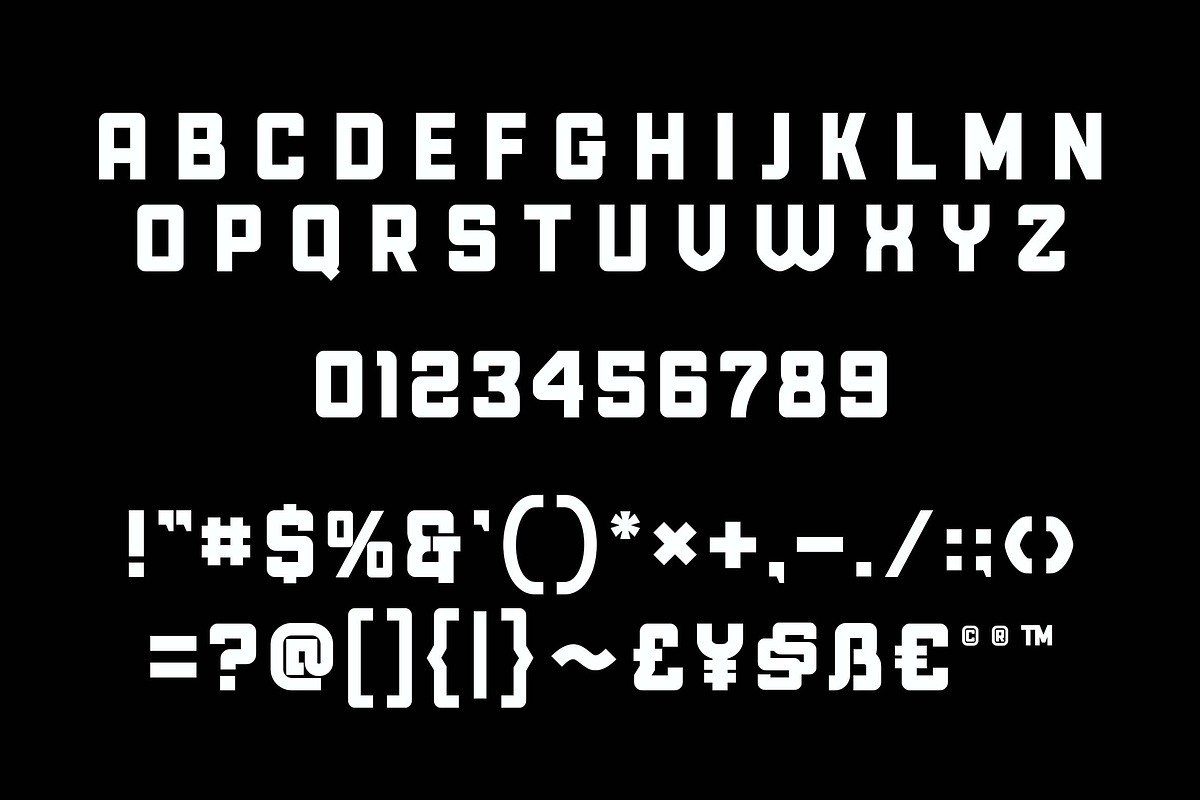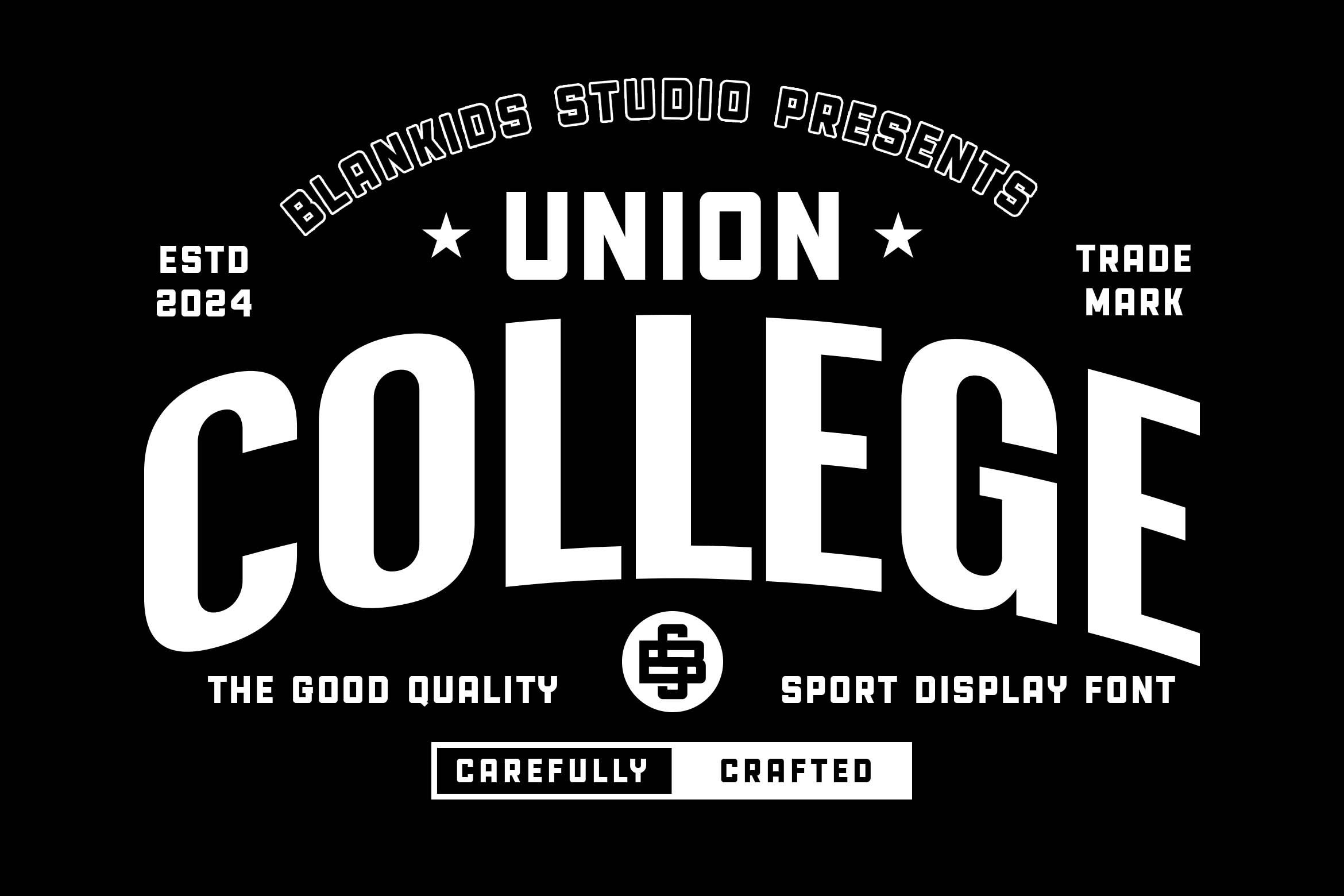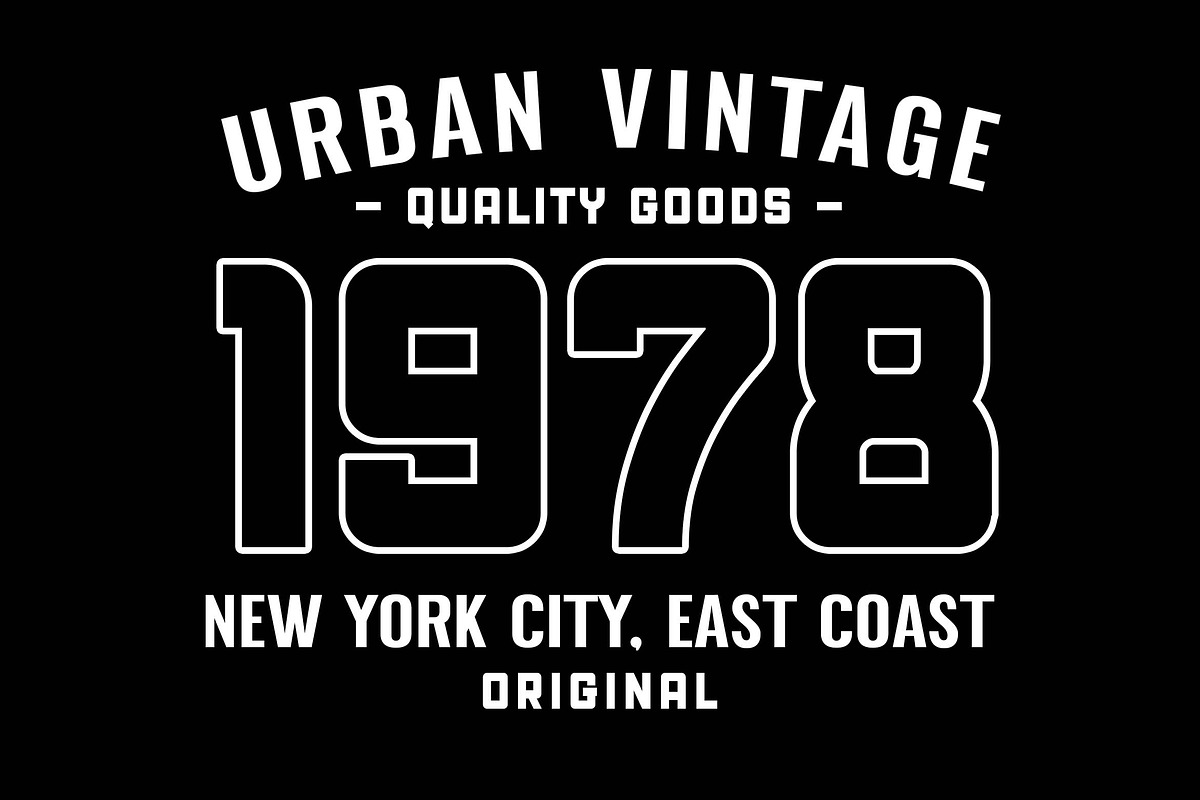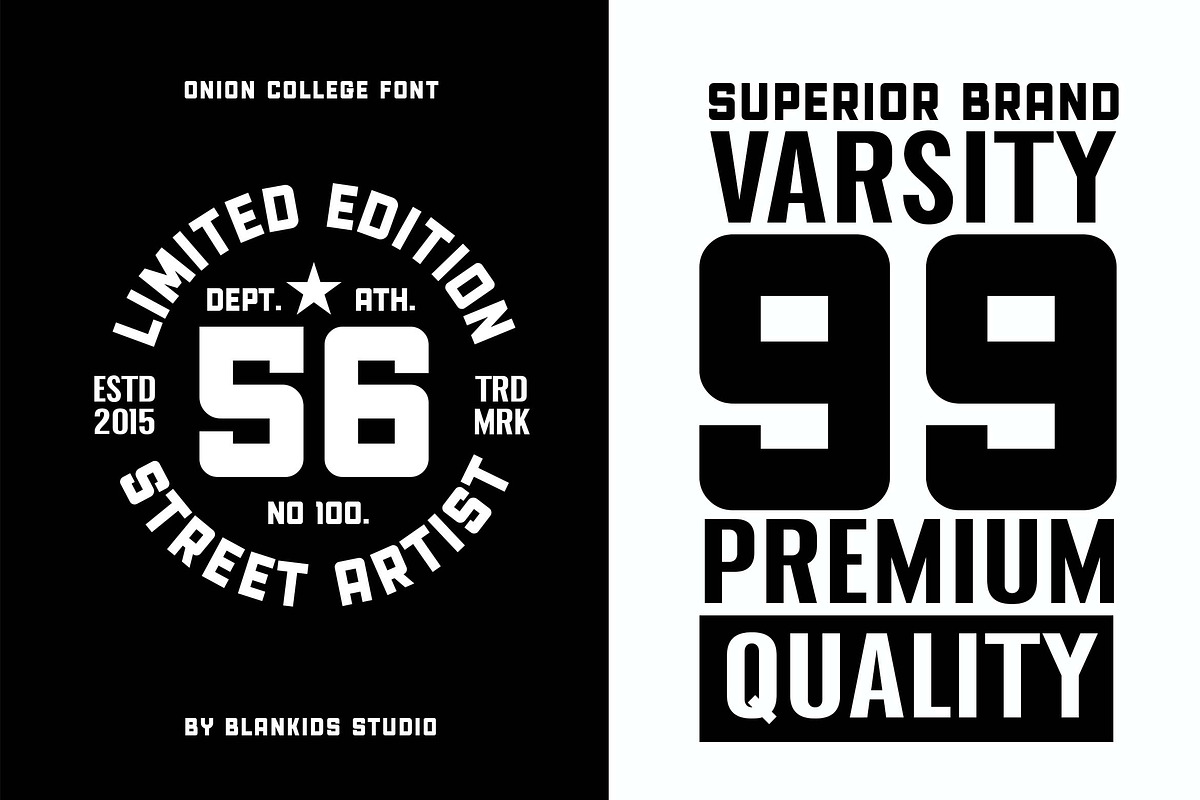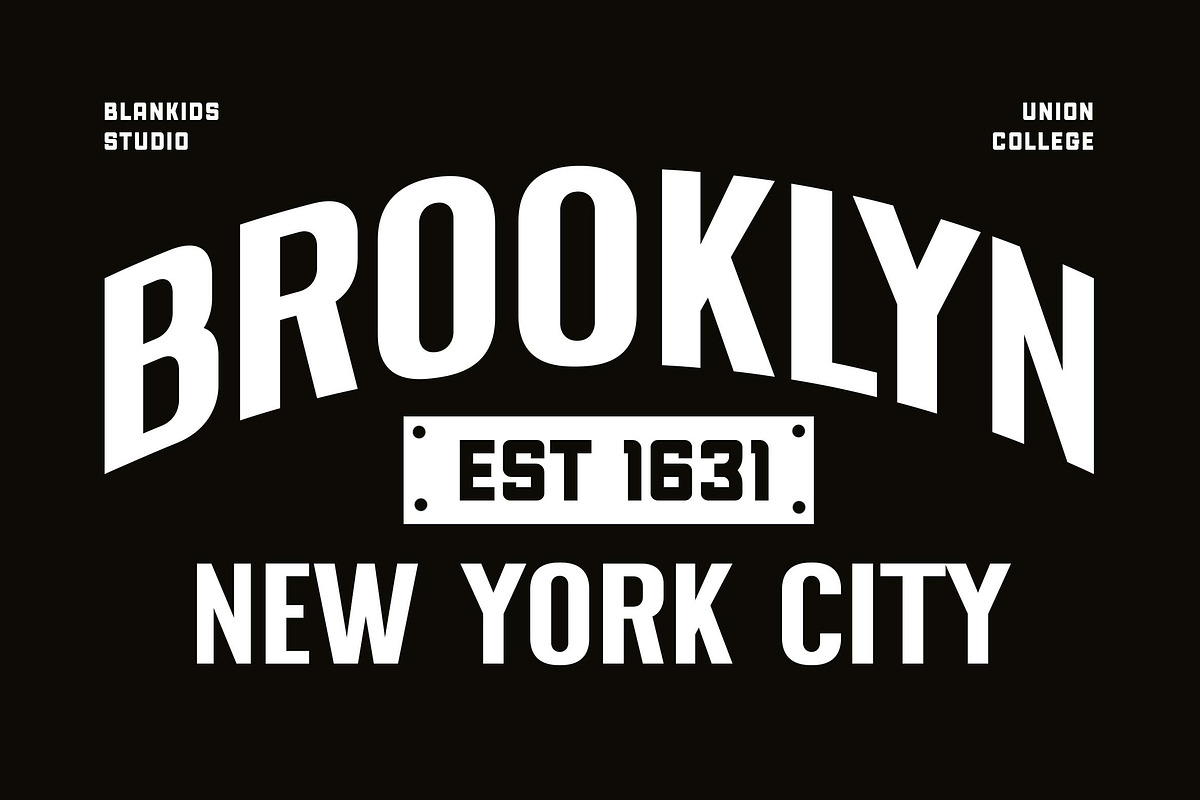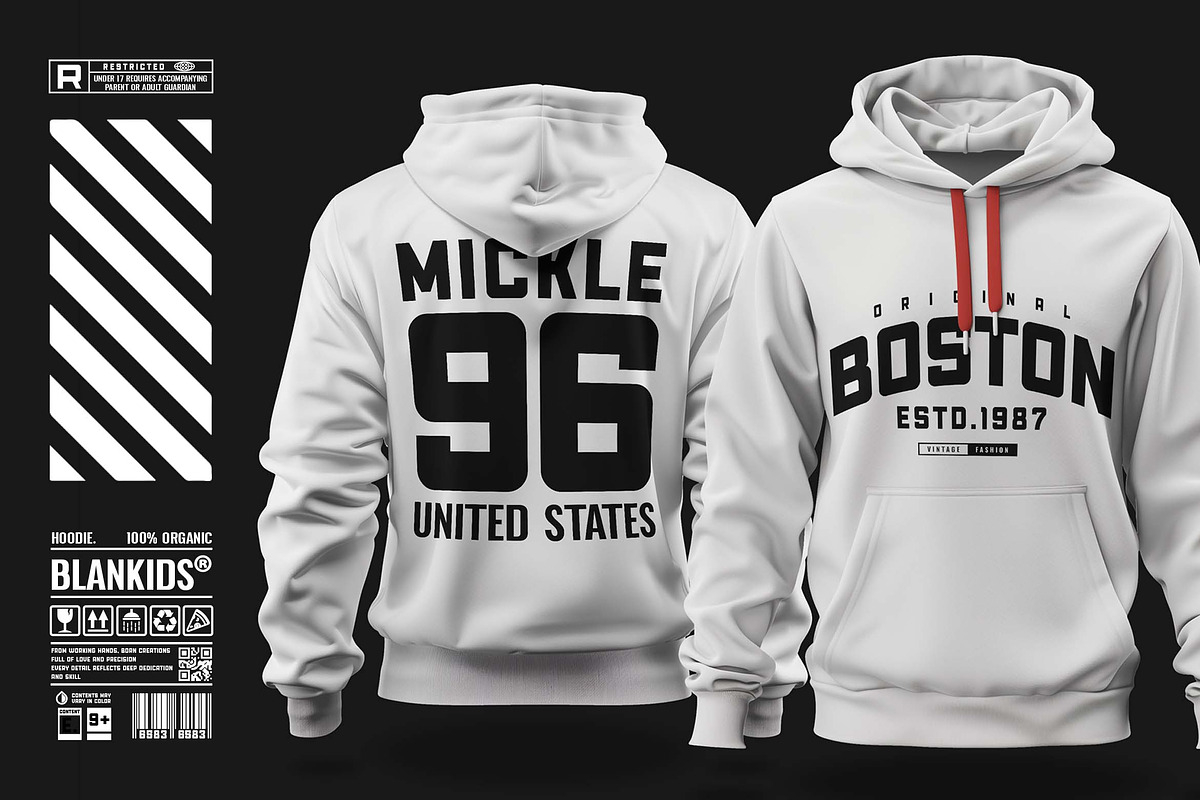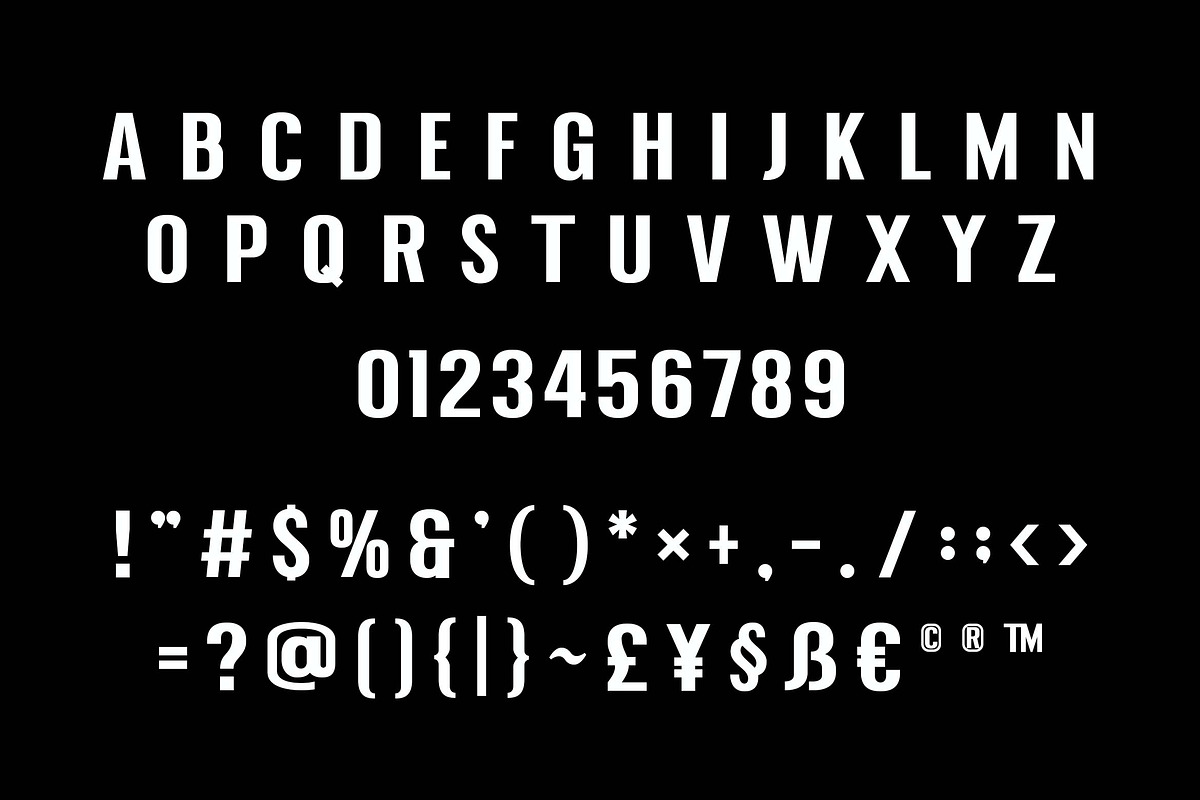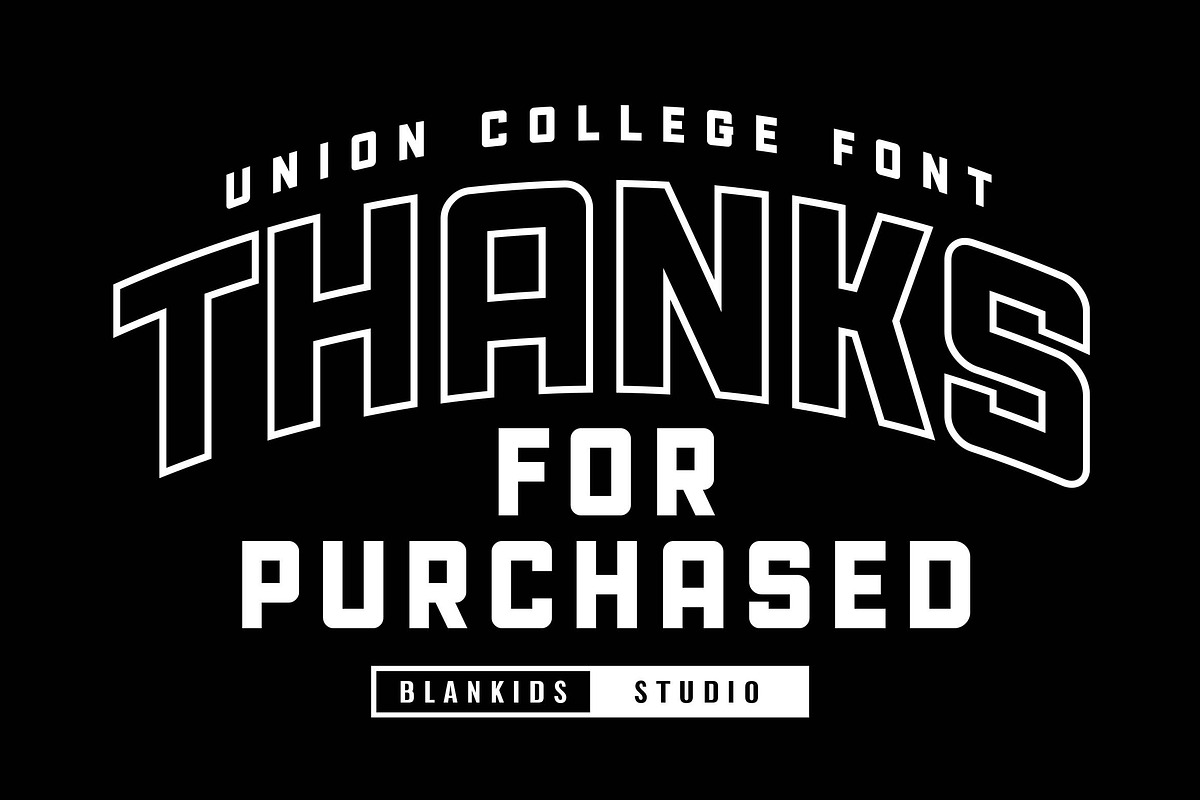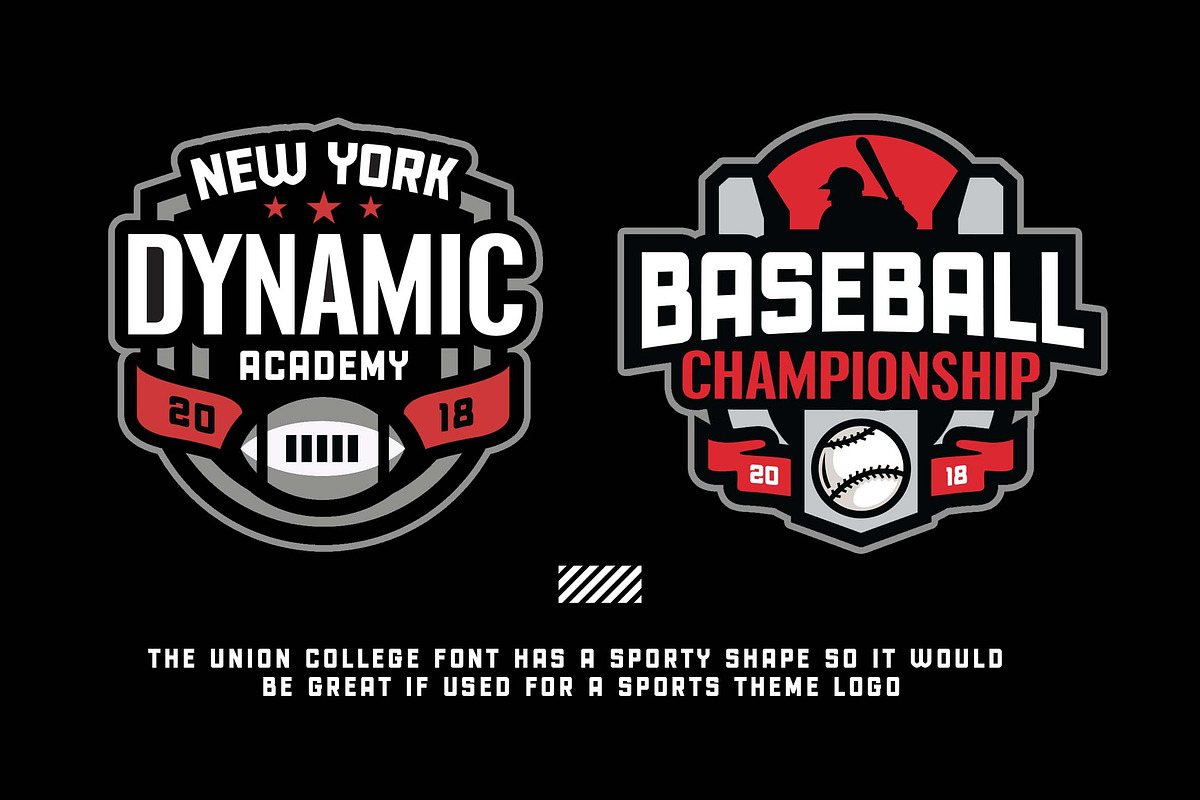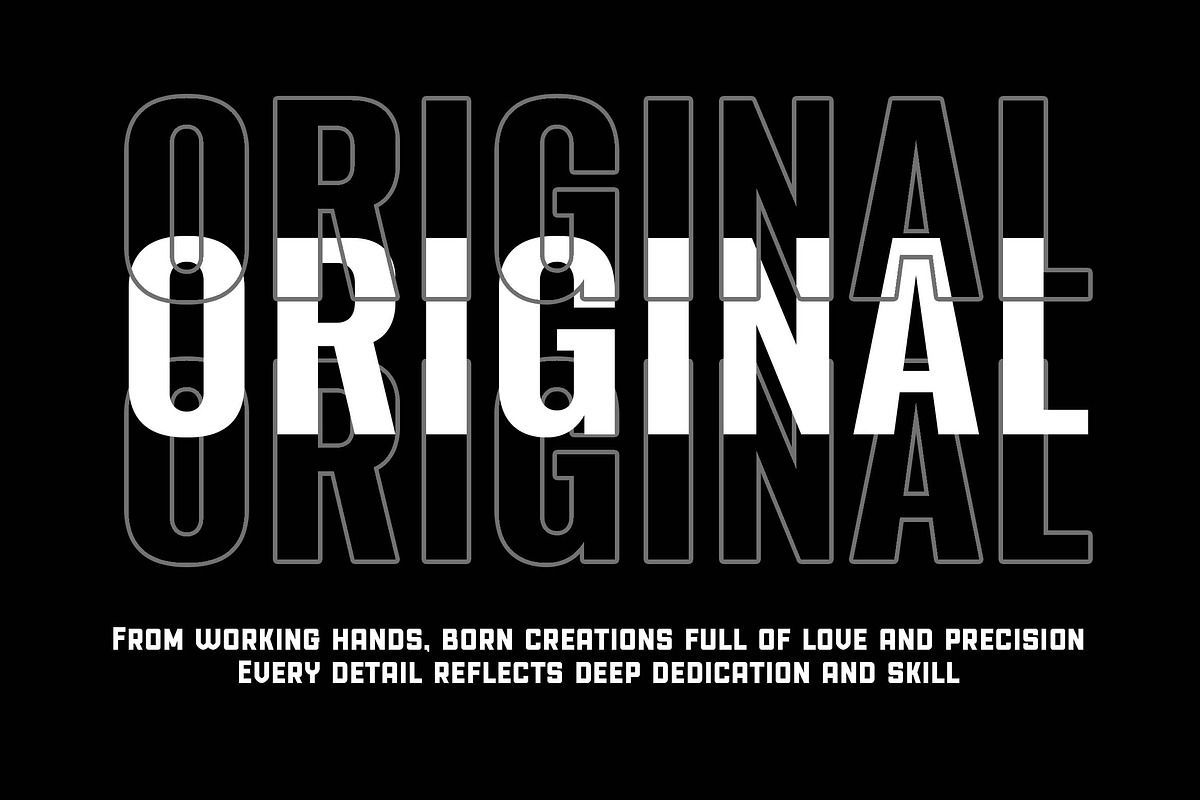
Union College a Sporty Display Font
Hello, awesome people! This time, we have a new font called Union College, a sporty display font by Blankids Studio.
Union College, a sporty display font, is made for any professional project branding, such as logotype, watermarks, poster, branding, promotions, product packaging, etc. Every letter has a sporty college and varsity style design. This font comes in 2 font combination.
Union College font includes a full set of sporty uppercase and lowercase letters, numerals and punctuation. This font has a sporty style. See the previews above to get some inspiration on how to use them. Happy designing!